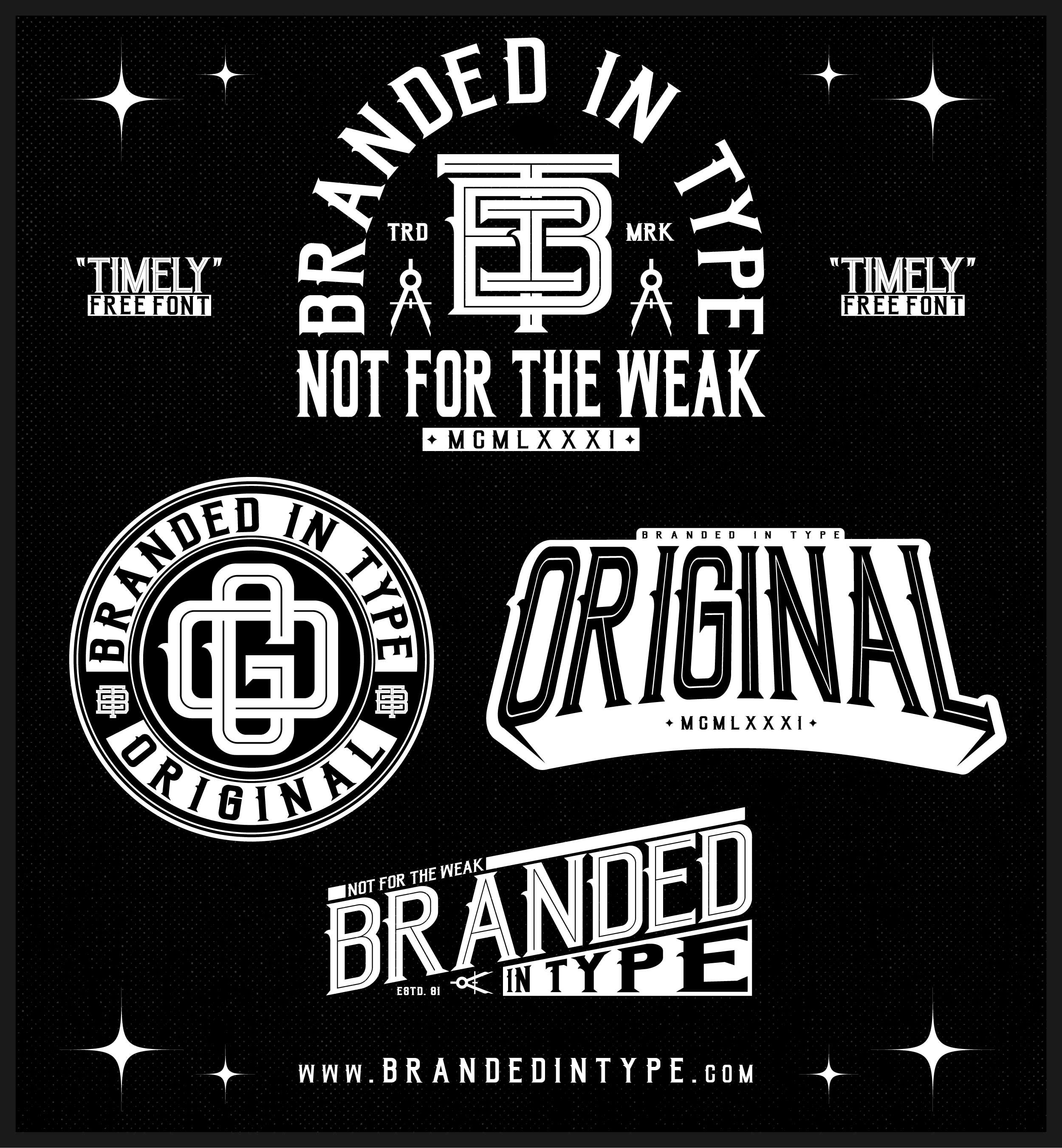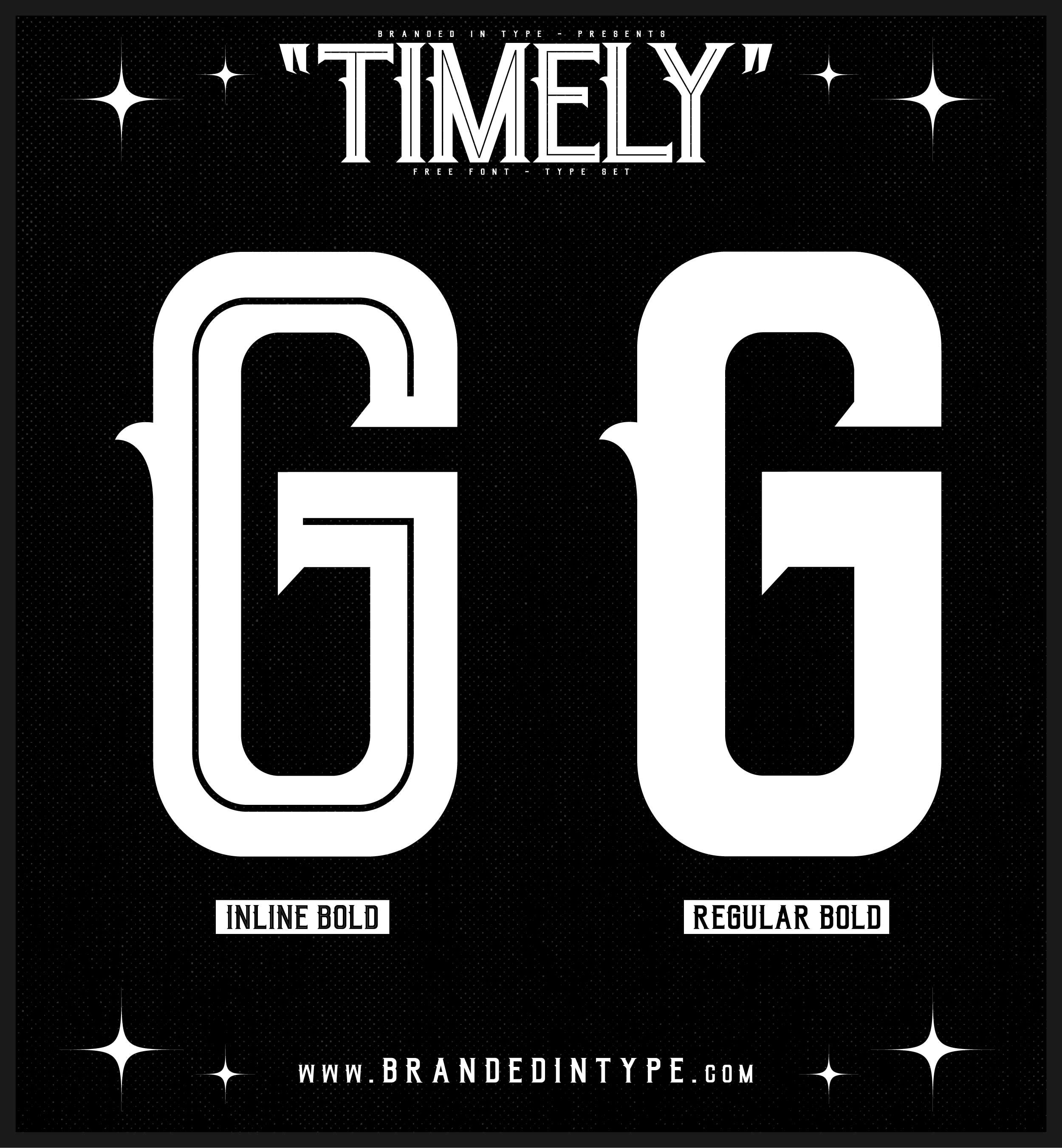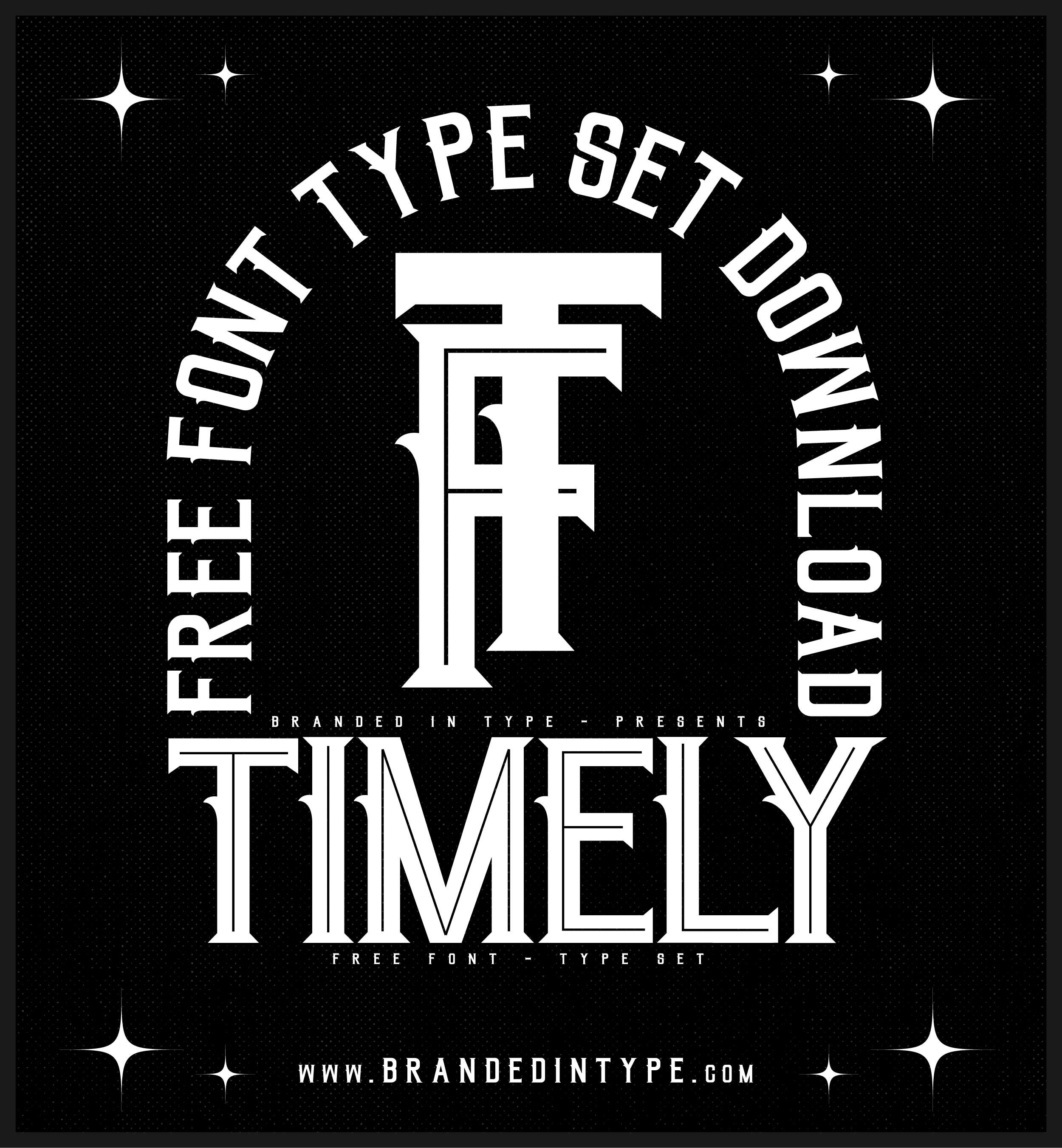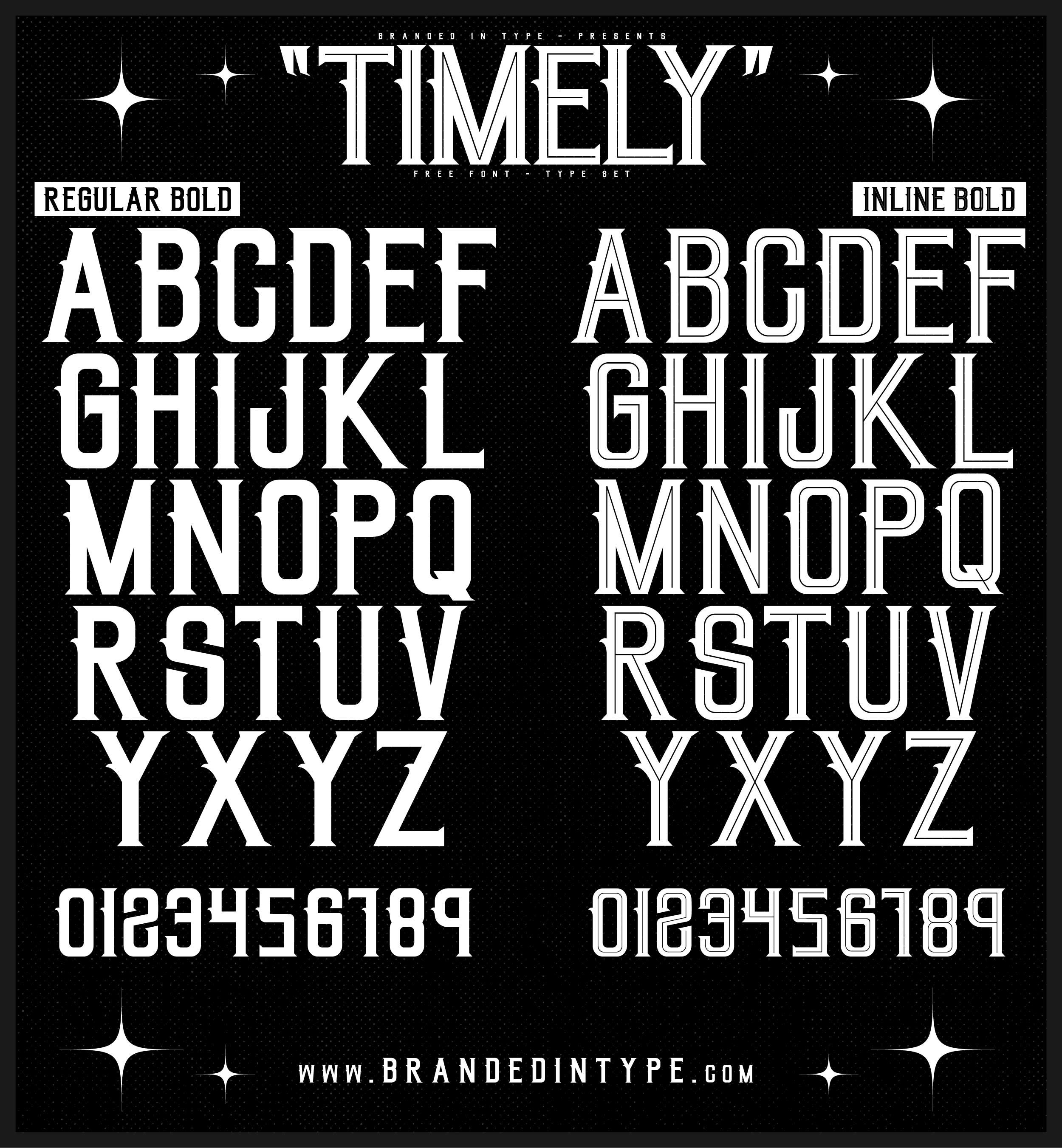
The perfect font for those “edgy” projects. Perfect for badge designs, tattoo shop/artist designs. Bold, edgy, powerful typeface set in both regular bold and Inline variations.